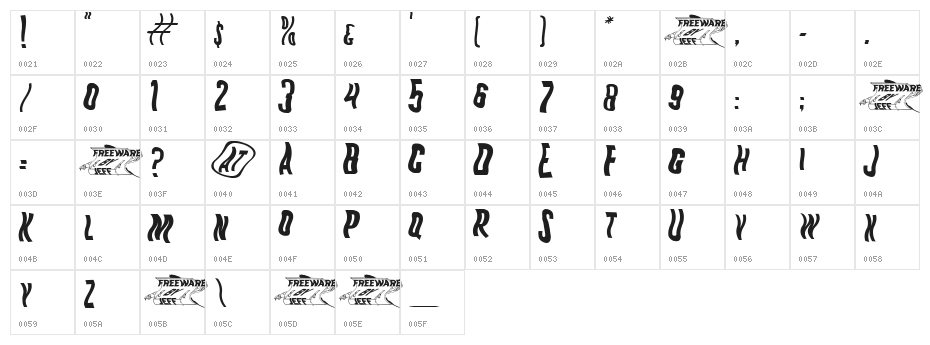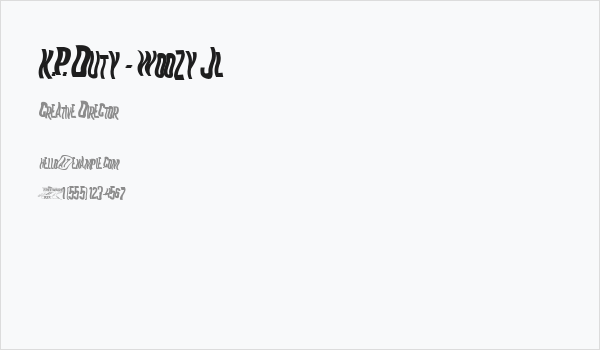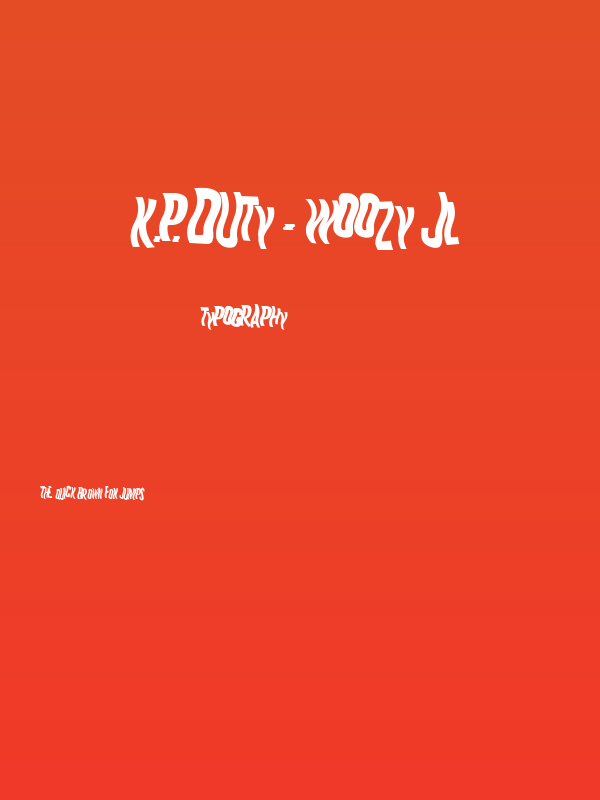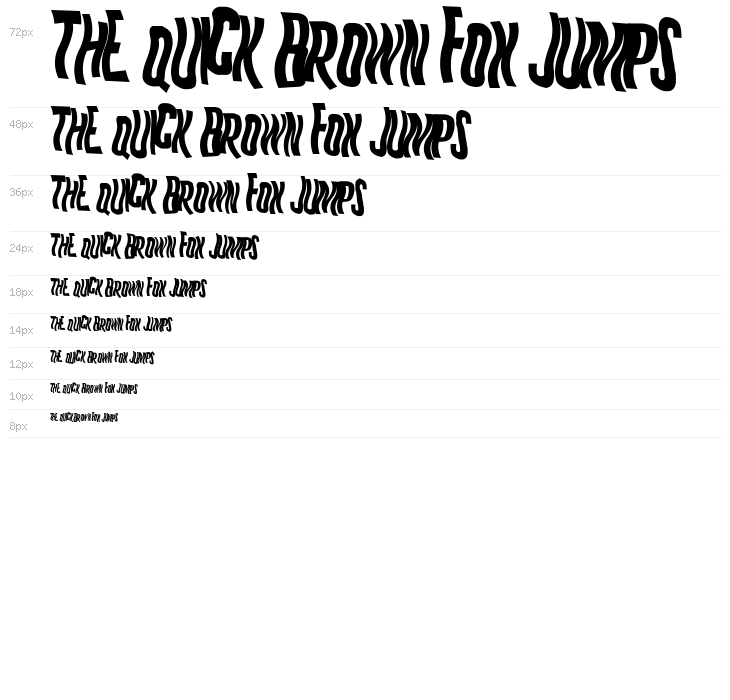
K.P. Duty - Woozy JL Font
K.P. Duty - Woozy JL Description
This font features a bold and dynamic style with a wavy, distorted appearance that gives it a unique and playful character. The uppercase and lowercase letters are designed with exaggerated curves and angles, creating a sense of movement and energy. The numbers and special characters follow the same design principles, maintaining consistency throughout the typeface. The overall look is eye-catching and unconventional, making it suitable for creative and artistic projects. The thick strokes and irregular shapes contribute to a strong visual impact, while the spacing between characters is relatively tight, enhancing the compact and cohesive feel of the text.
| Proposed Projects | Ideal for posters, album covers, event flyers, and any project requiring a bold, artistic touch. |